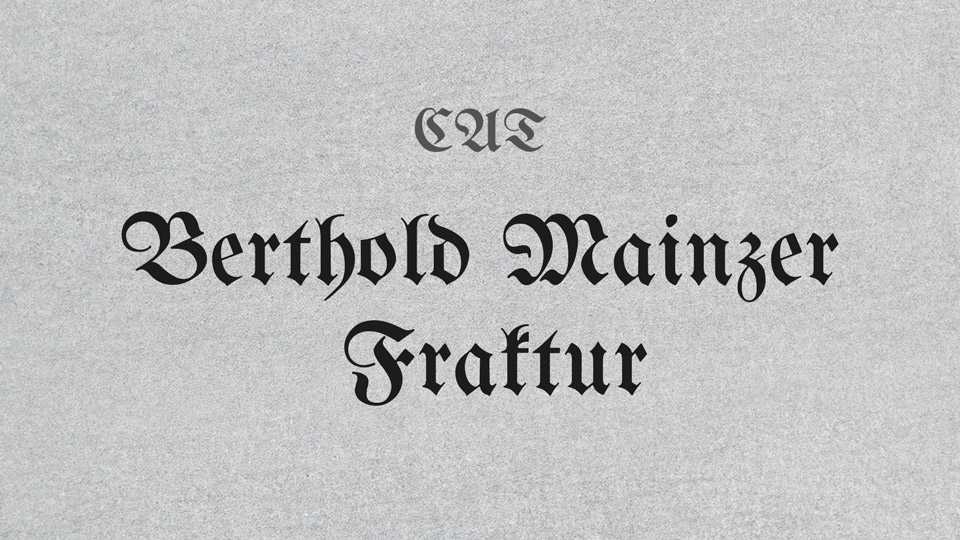
Download Berthold Mainzer Fraktur font, a blackletter typeface based on the 1900 style “Fraktur” used in many german books. It was carefully redrawn and redesigned for modern use, the ligatures were also designed individually.